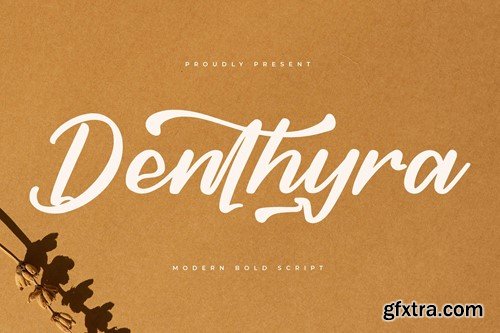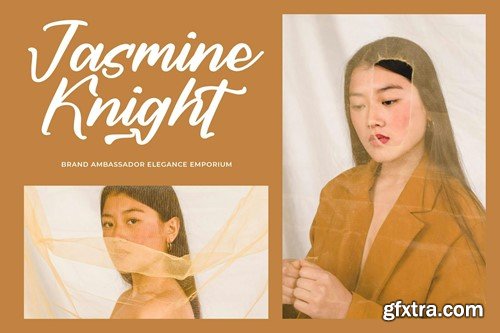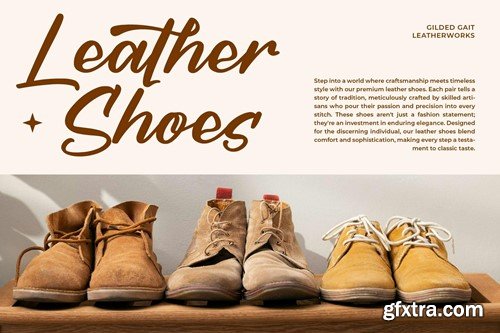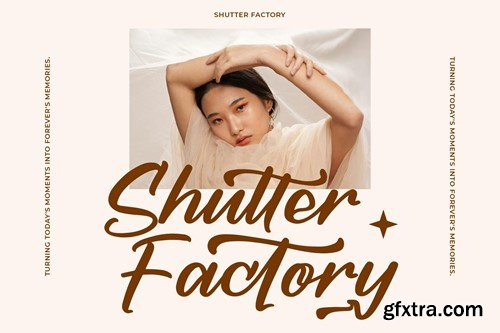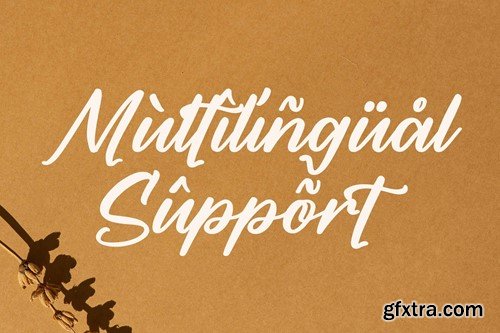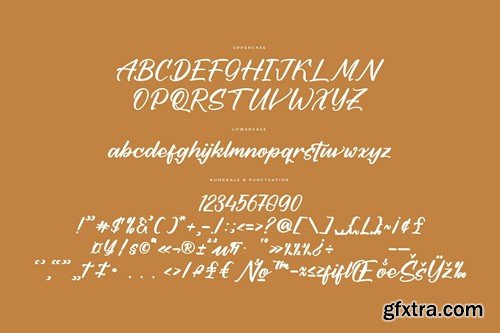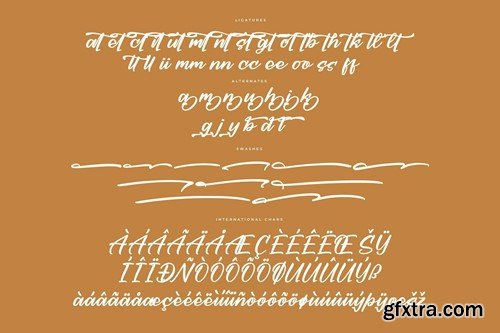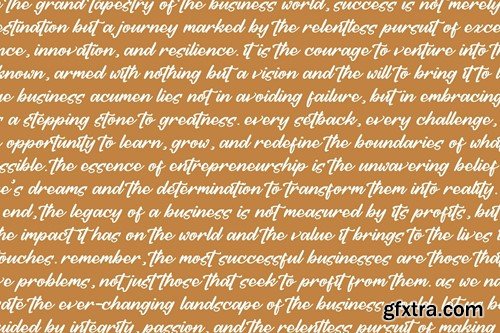
Denthyra Modern Bold Script Font 9ETGUAX
Denthyra Modern Bold Script Font
Hi ladies & gentlemen, this is one of our fonts suitable to complement your digital and printed creative products. This font is perfect for posters, social media posts, branding, personal projects, etc.